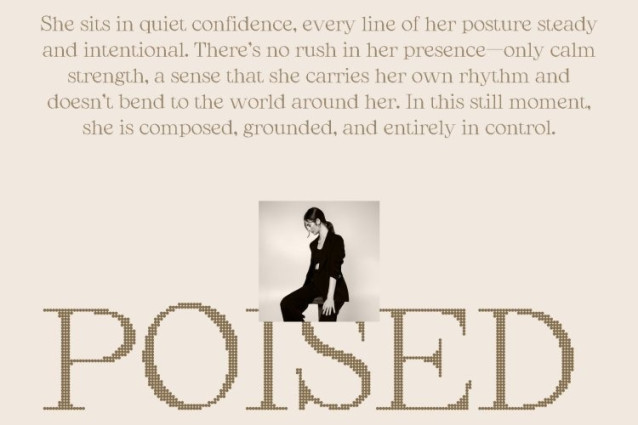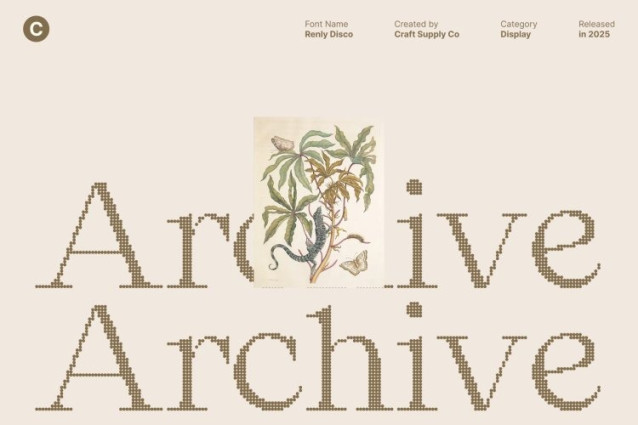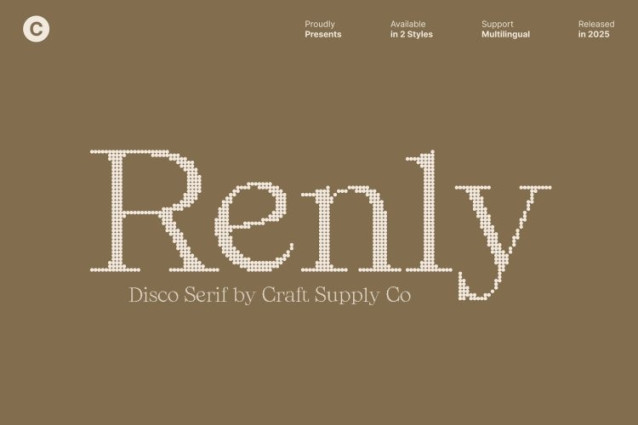
Renly Disco Font
Renly Disco Font This is a modern classic serif font designed to blend timeless sophistication with sleek, contemporary lines. Its clean, refined letterforms convey elegance and poise, creating a font that feels both polished and visually captivating. Each character embodies the perfect balance of classic serif beauty and modern simplicity, making Renly Disco ideal for projects that demand style and refinement.
Sleek Shapes for Sophisticated Visual Impact
The smooth, structured shapes of this font give it a striking presence in any layout. Its contemporary lines enhance readability while maintaining a luxurious, high-end aesthetic. This versatile design ensures the font works beautifully across a wide range of creative applications, from editorial layouts to branding and packaging.
Disco Effect for Glamour and Dynamic Energy
The integrated disco effect adds sparkle and subtle movement to each letter, infusing designs with glamour and vibrant energy. This dynamic detail transforms text into a visual statement, making your compositions feel lively, stylish, and unforgettable.
Perfect for Luxury Branding, Editorials, and Creative Projects
This font excels in luxury branding, editorial layouts, posters, creative projects, and high-end design applications. Whether crafting glamorous headlines, sophisticated invitations, or visually striking promotional materials, this font delivers a refined, stylish, and captivating presence.